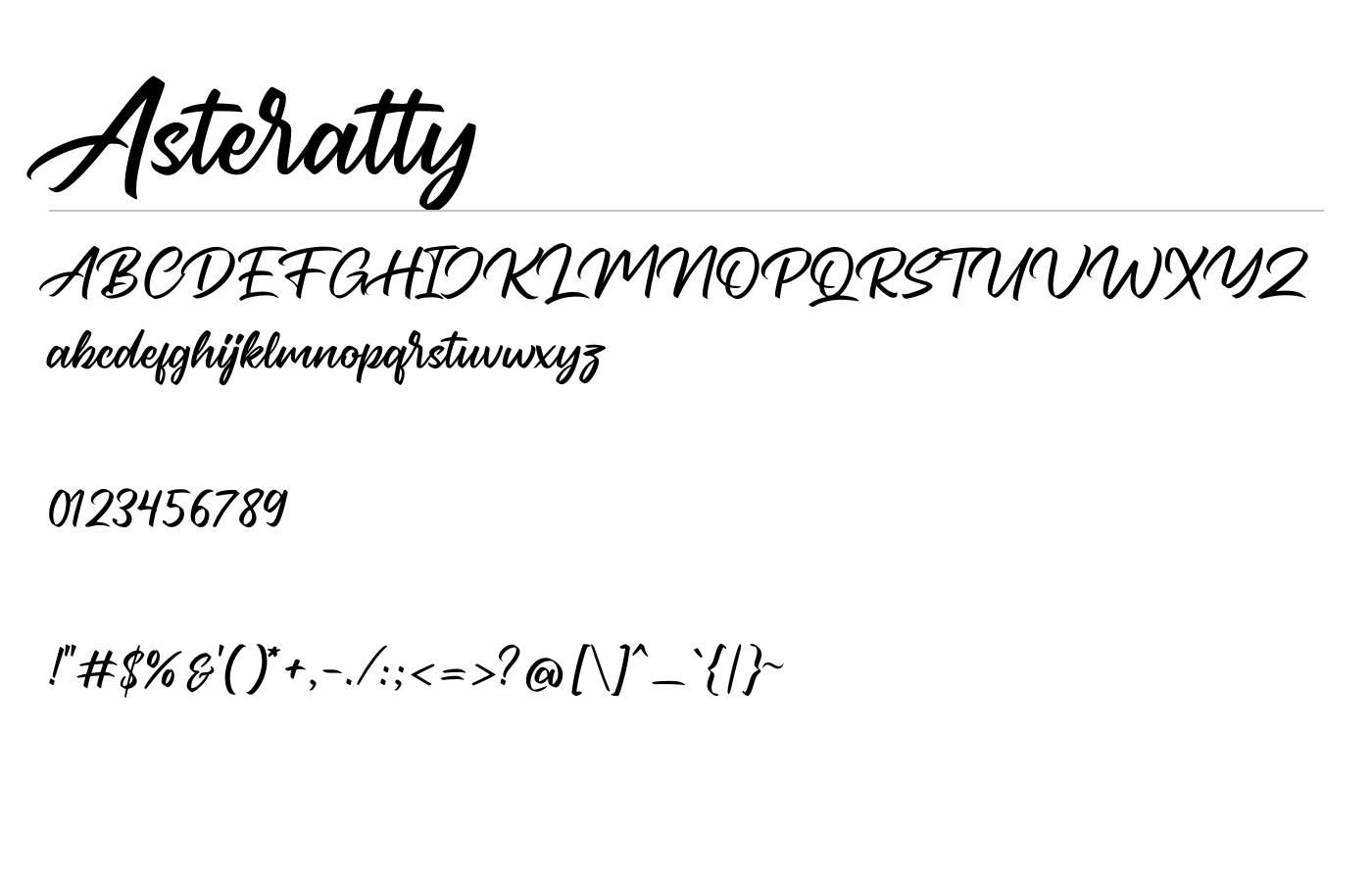
Asteratty is an elegant script font featuring smooth, flowing strokes with moderate contrast and a hand-lettered feel. Its slightly condensed letterforms and delicate curves lend it a graceful, sophisticated personality perfect for branding, invitations, and stylish headlines. This font works well in designs that need a personal, refined touch without sacrificing readability.
Asteratty Font
About Asteratty Font